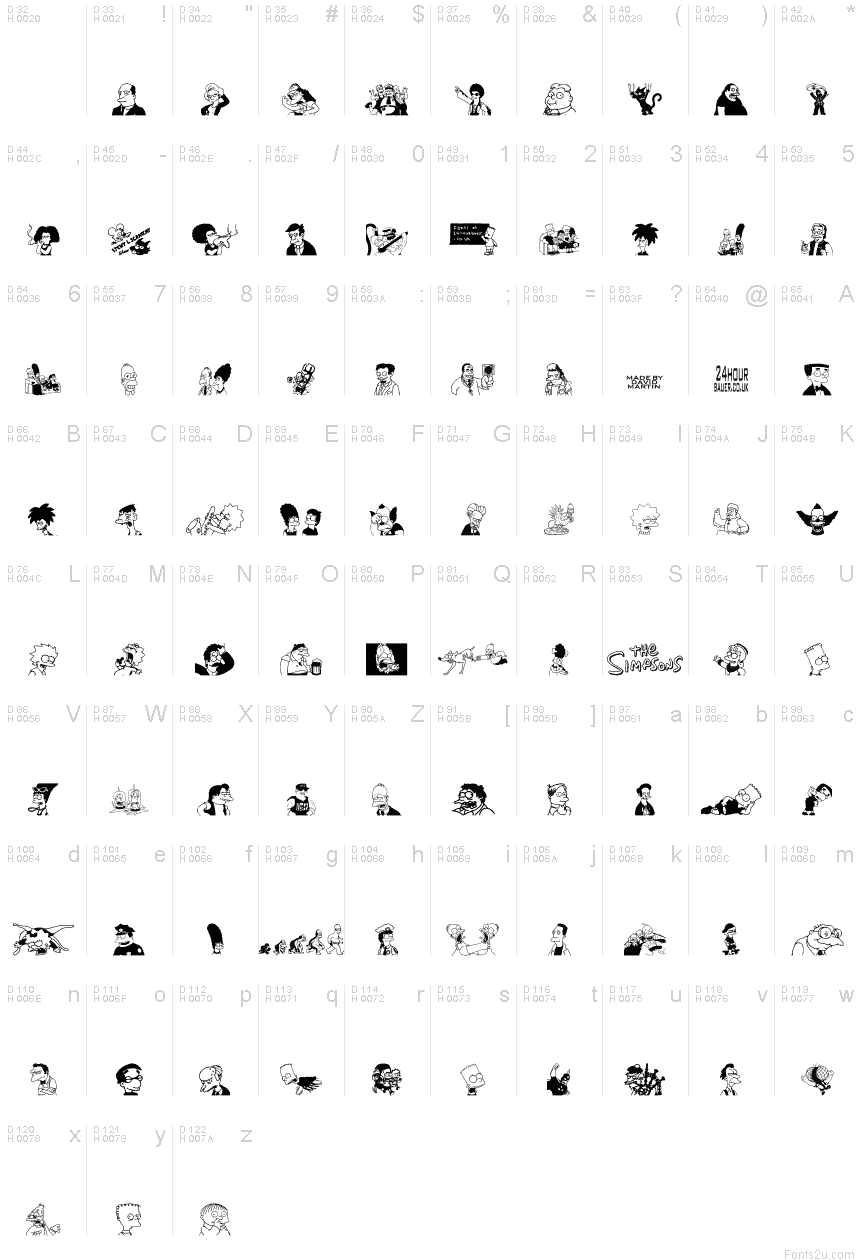
Simpsons Mmmm...Font
Simpsons Mmmm Font, a free Simpsons cartoon dingbats font by David Martin from 2006, turns the alphabet into a set of loose, hand-drawn character portraits with thick black outlines and that knowingly scruffy TV-cartoon energy. The collection leans on exaggerated faces, open mouths, bulging eyes, and uneven linework, so the overall feel is more like a sheet of quick character sketches than a conventional decorative font.
This free font fits fan posters, party invites, scrapbook pages, novelty merch, and joke-heavy social graphics where a single character head can carry the whole message. Use it for title cards, short pull quotes, or monogram-style initials when you want familiar cartoon expression rather than orderly lettering.